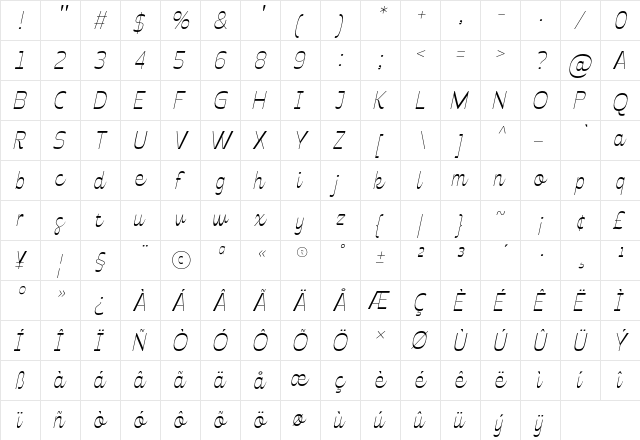
Celestine ExtraLightItaic
| Foundry | Anugrah Pasau |
| Designer | Anugrah Pasau |
Design Context for Celestine Typeface
Celestine is a composed and adaptable typeface that performs quietly and consistently across a wide range of design contexts. The delicate stroke weight brings airiness and refinement to layouts.